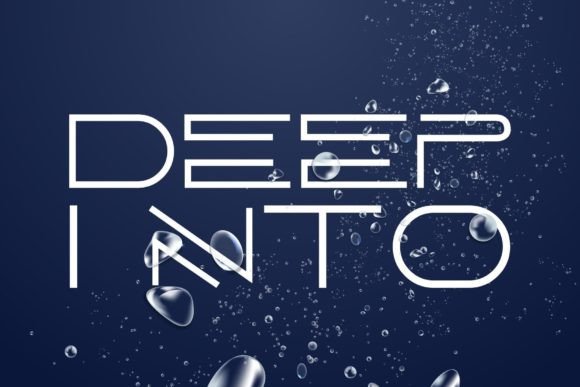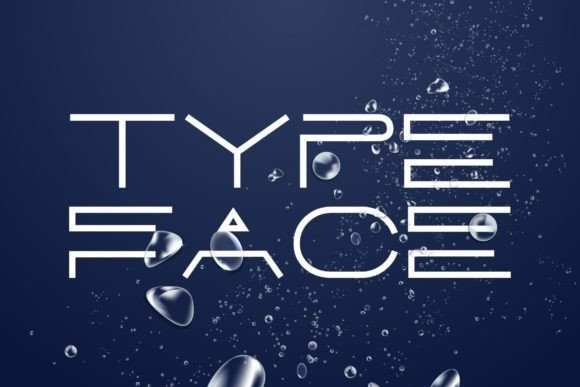
Electrype Font: A Simple yet Striking Typeface for Modern Designs
In the world of typography, a good font can make all the difference in the success of a design project. For designers and crafters looking for a typeface that exudes simplicity, cleanliness, and elegance, Electrype Font is an excellent choice. This electric geometry line typeface has been gaining popularity for its undeniably clean feel and beautiful arrangement of letters, making it perfect for both formal and non-formal designs.
What is Electrype Font?
Electrype Font is a display font that boasts a simple and casual aesthetic. Its clean lines and geometric shapes create a visually appealing effect that can elevate any design project. The font’s neat and organized arrangement of letters makes it easy to read and understand, while its unique style adds a touch of sophistication.
Key Features of Electrype Font
- Clean and Simple Design: Electrype Font features a clean and simple design that makes it perfect for use in a variety of design projects, from logos and branding to posters and social media graphics.
- Elegant and Sophisticated: The font’s geometric shapes and lines create an elegant and sophisticated look that can add a touch of class to any design.
- Versatile: Electrype Font is versatile and can be used in both formal and non-formal designs, making it a great addition to any designer’s toolkit.
- Easy to Read: The font’s clear and organized arrangement of letters makes it easy to read and understand, even at smaller sizes.
Uses of Electrype Font
Electrype Font is a versatile typeface that can be used in a variety of design projects, including:
- Logo Design: The font’s clean and simple design makes it perfect for use in logo design, where a clear and recognizable brand identity is essential.
- Branding: Electrype Font can be used in branding materials, such as business cards, letterheads, and packaging, to create a consistent and professional look.
- Posters and Flyers: The font’s elegant and sophisticated design makes it perfect for use in posters and flyers, where a bold and eye-catching headline is needed.
- Social Media Graphics: Electrype Font can be used in social media graphics, such as Facebook and Twitter posts, to add a touch of elegance and sophistication.
Benefits of Using Electrype Font
Using Electrype Font in your design projects can have several benefits, including:
- Improved Readability: The font’s clear and organized arrangement of letters makes it easy to read and understand, even at smaller sizes.
- Increased Versatility: Electrype Font can be used in a variety of design projects, making it a great addition to any designer’s toolkit.
- Enhanced Professionalism: The font’s elegant and sophisticated design can add a touch of professionalism to any design project.
In conclusion, Electrype Font is a simple yet striking typeface that can elevate any design project. Its clean and simple design, elegant and sophisticated look, and versatility make it perfect for use in a variety of design projects, from logos and branding to posters and social media graphics. With its improved readability, increased versatility, and enhanced professionalism, Electrype Font is a great choice for designers and crafters looking for a reliable and stylish typeface.
Tips for Using Electrype Font
- Use it in combination with other fonts: Electrype Font can be paired with other fonts to create a unique and visually appealing effect.
- Experiment with different sizes and colors: The font’s clean and simple design makes it perfect for use in a variety of sizes and colors.
- Use it consistently: To create a professional and cohesive look, use Electrype Font consistently throughout your design project.